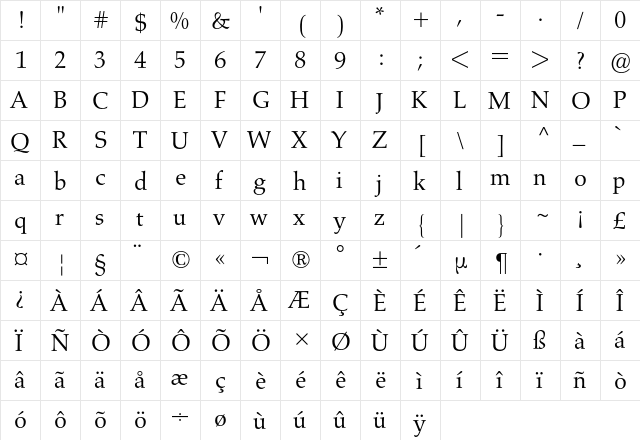
Aldus BQ Regular
Design Context for Aldus BQ Typeface
Aldus BQ offers clean, dependable letterforms without strong stylistic allegiance, making it a practical choice for designers who need flexibility.
Pro Tip: Use Aldus BQ in both headline and body roles to test its range before committing to a single application.